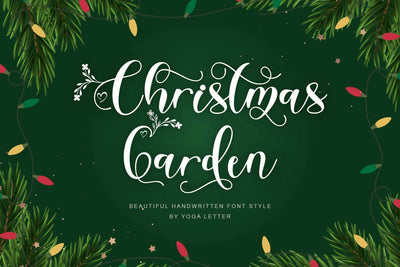
Christmas Garden
"Christmas Garden" is a beautiful and unique handwritten font. This font is equipped with uppercase letters, lowercase letters, numerals, punctuation, alternates, multilingual support, and ligatures. Very suitable for Christmas, weddings, winter, Valentine's, engagements, invitations, and others.